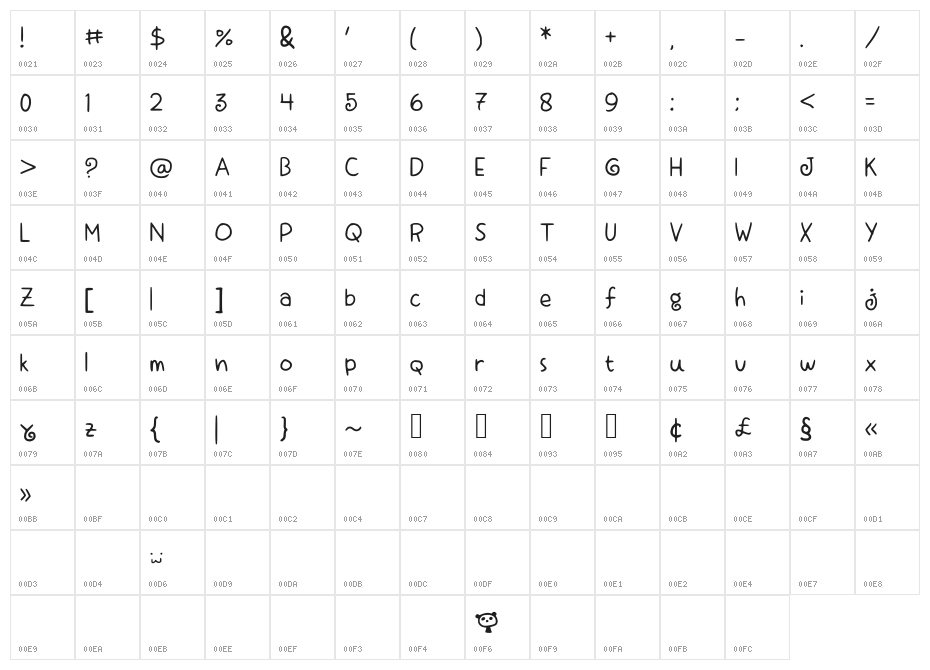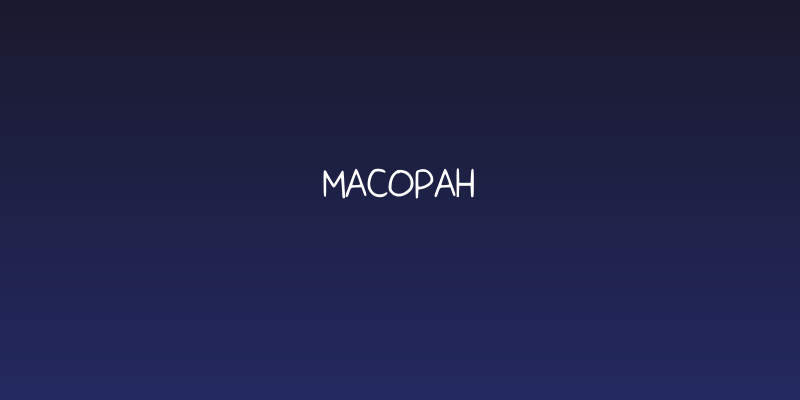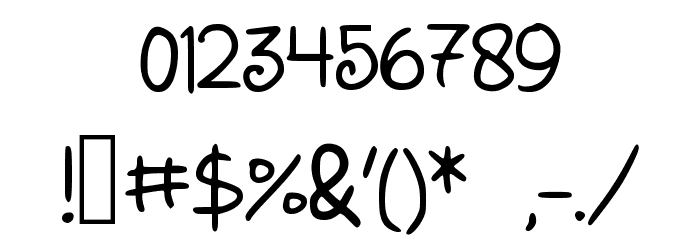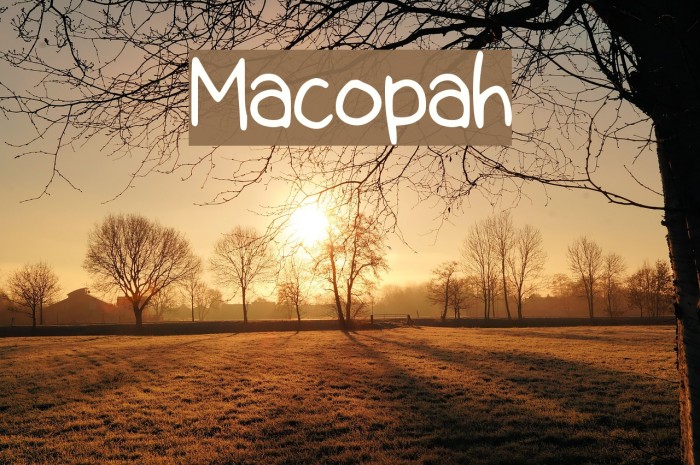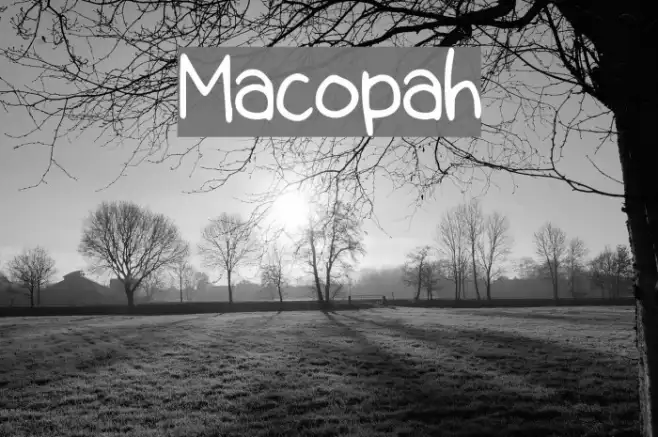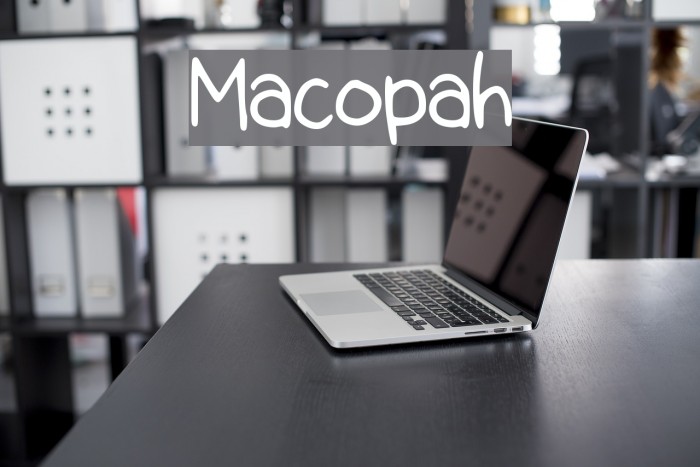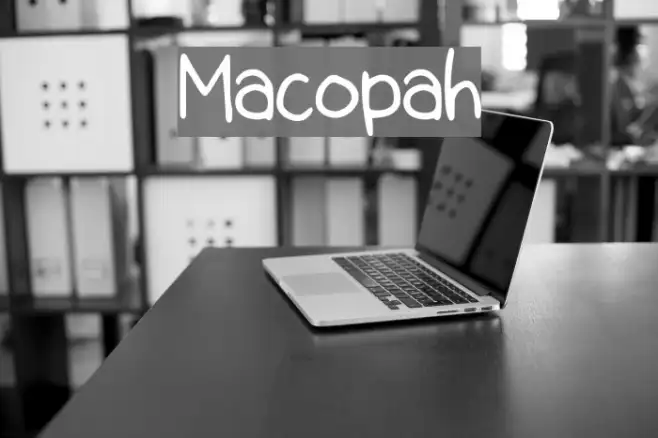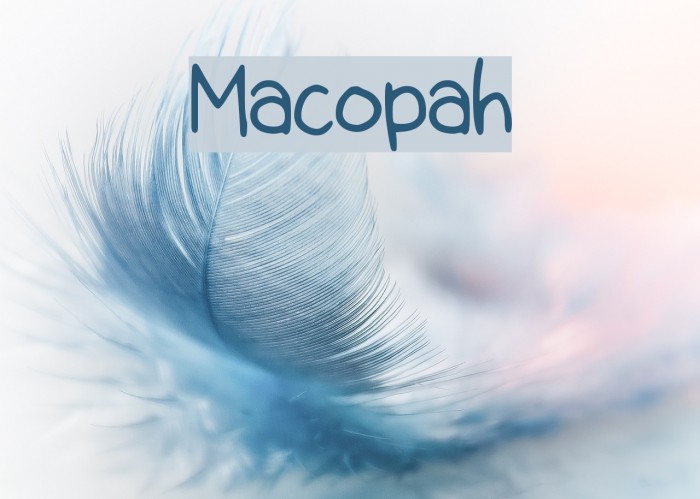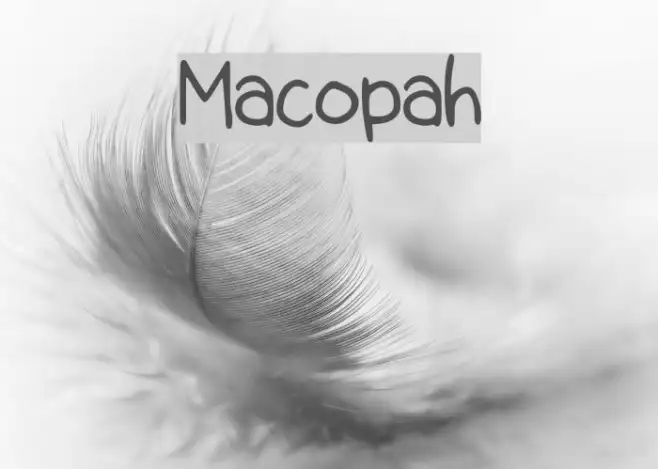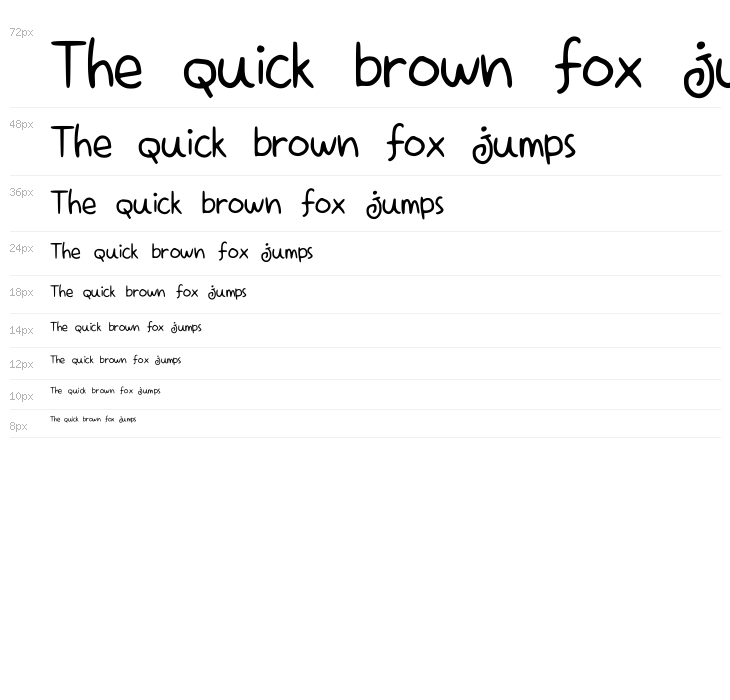
Macopah Font
Macopah Description
This font features a playful and whimsical design, characterized by its rounded and slightly irregular letterforms. The uppercase letters are bold and prominent, while the lowercase letters maintain a consistent style with a touch of quirkiness, particularly noticeable in characters like 'g' and 'y'. The numbers are clear and easy to read, matching the overall playful aesthetic. Special characters are well-integrated, maintaining the font's unique style. The font's informal and friendly appearance makes it suitable for creative and casual projects, adding a touch of fun and personality to any design.